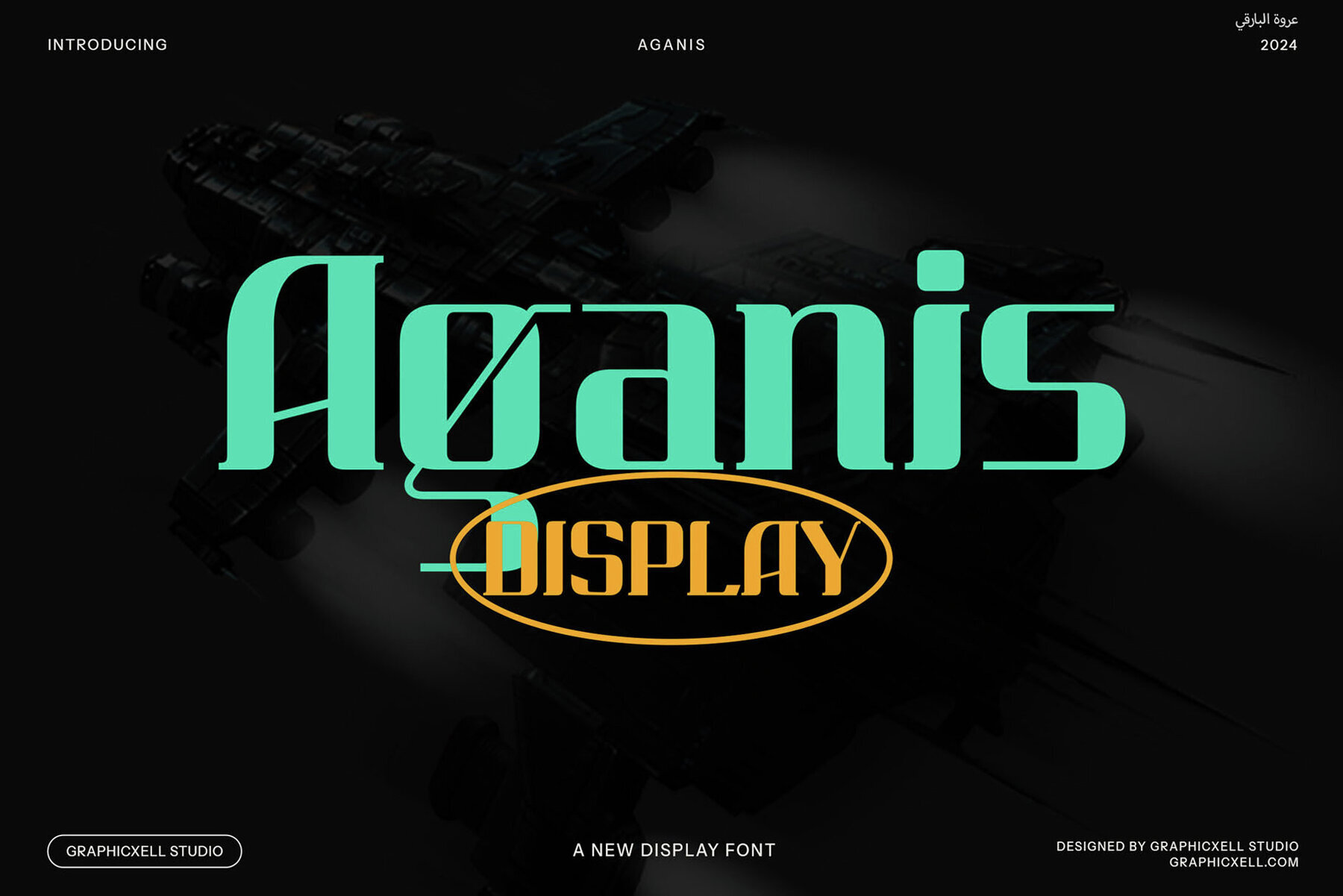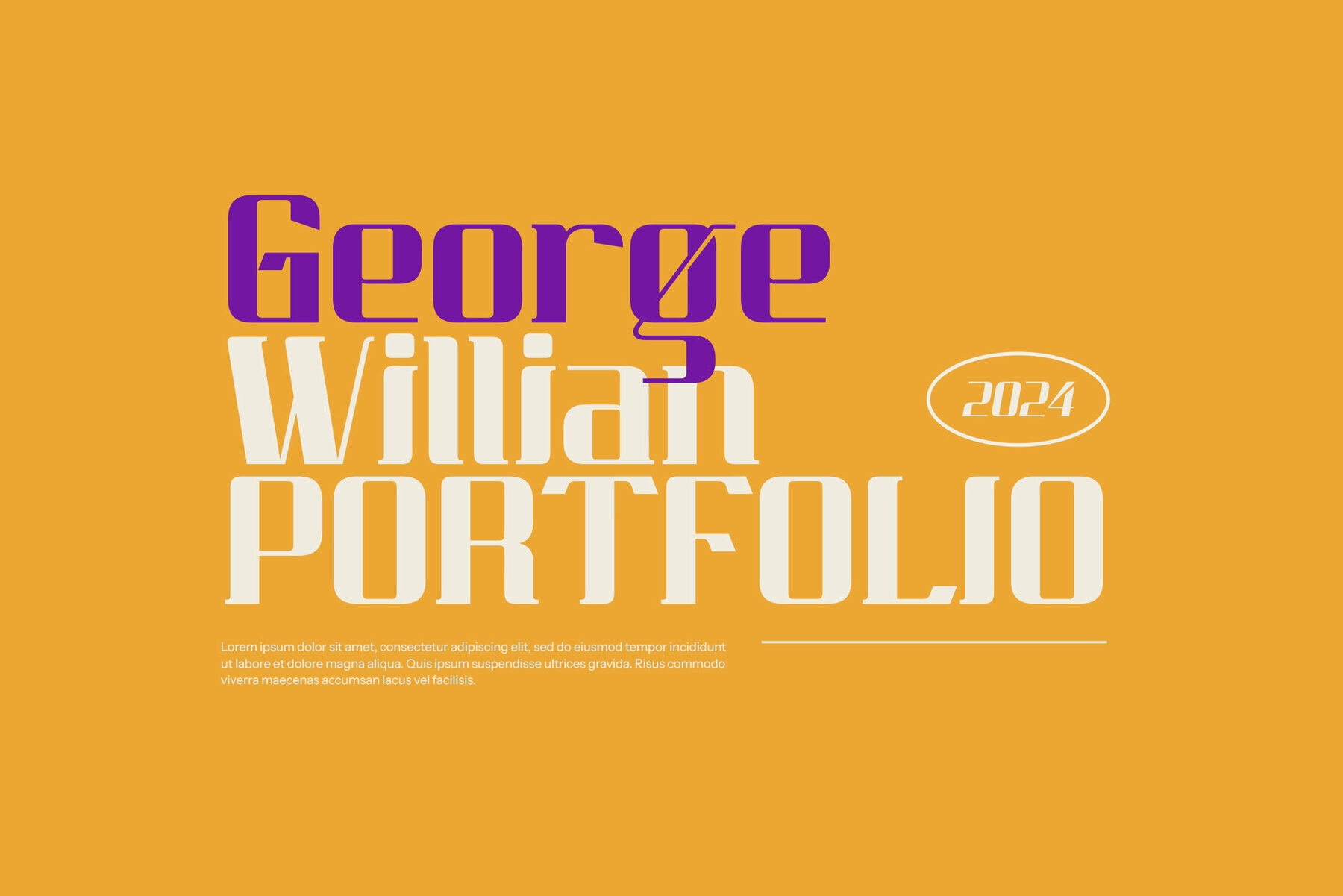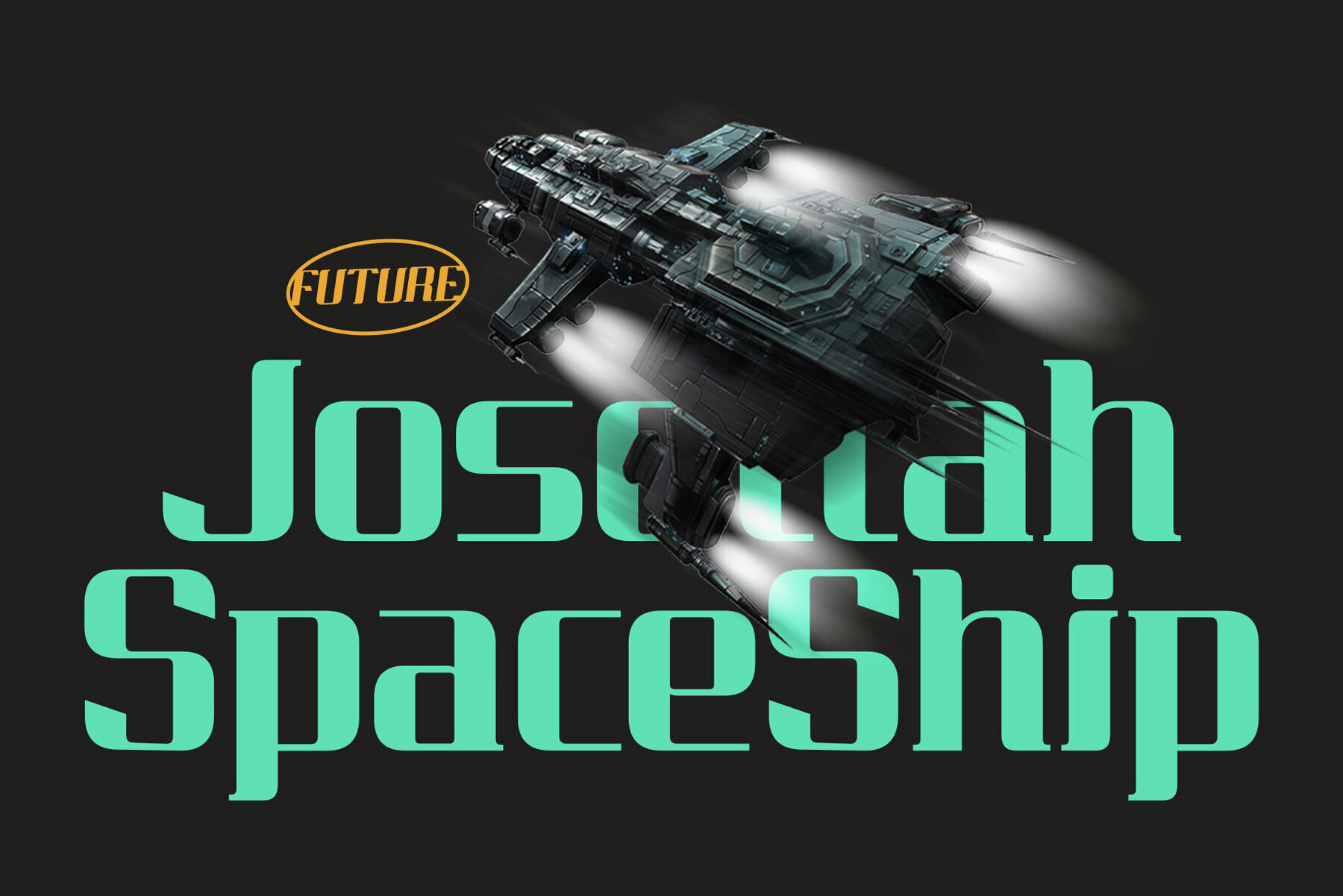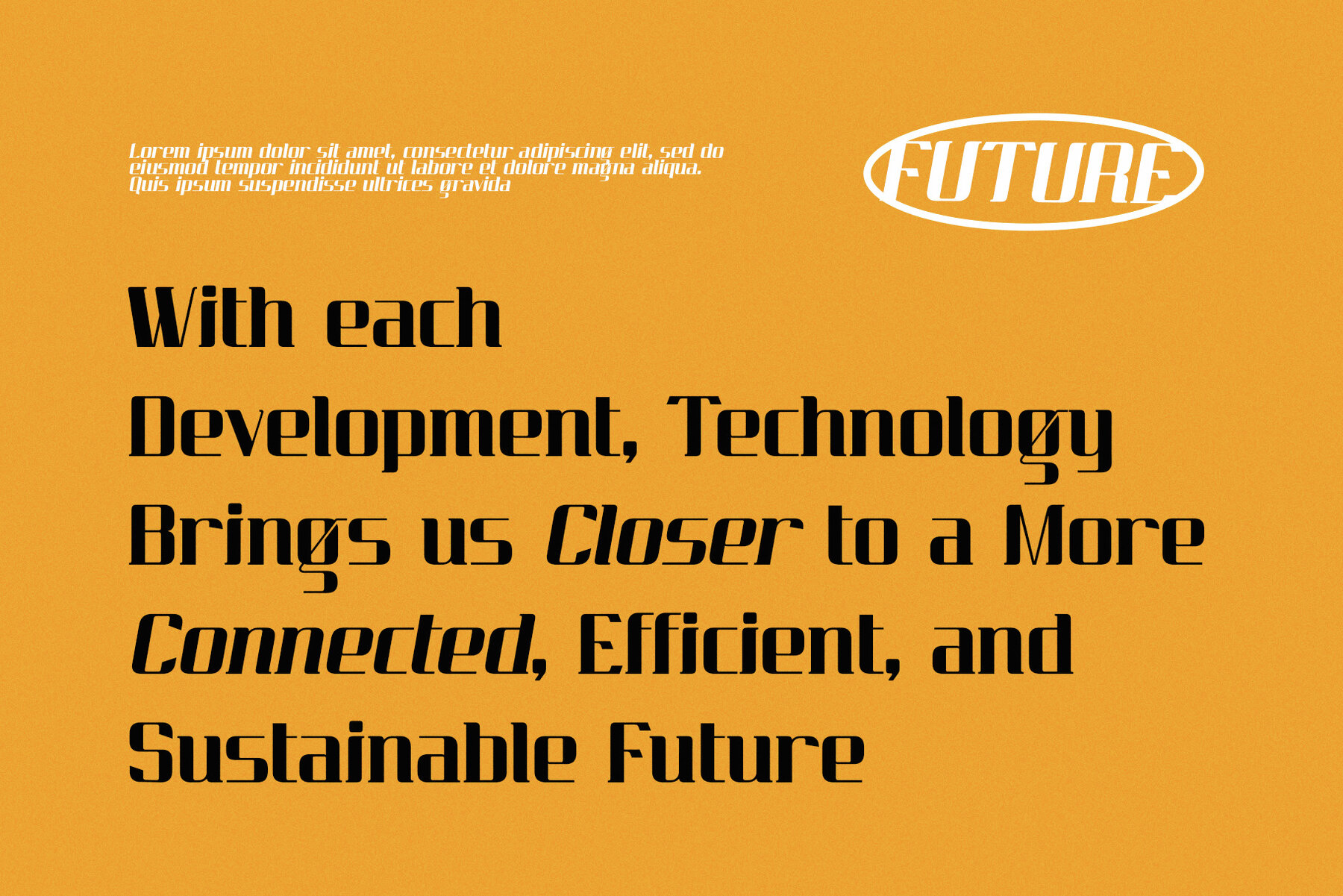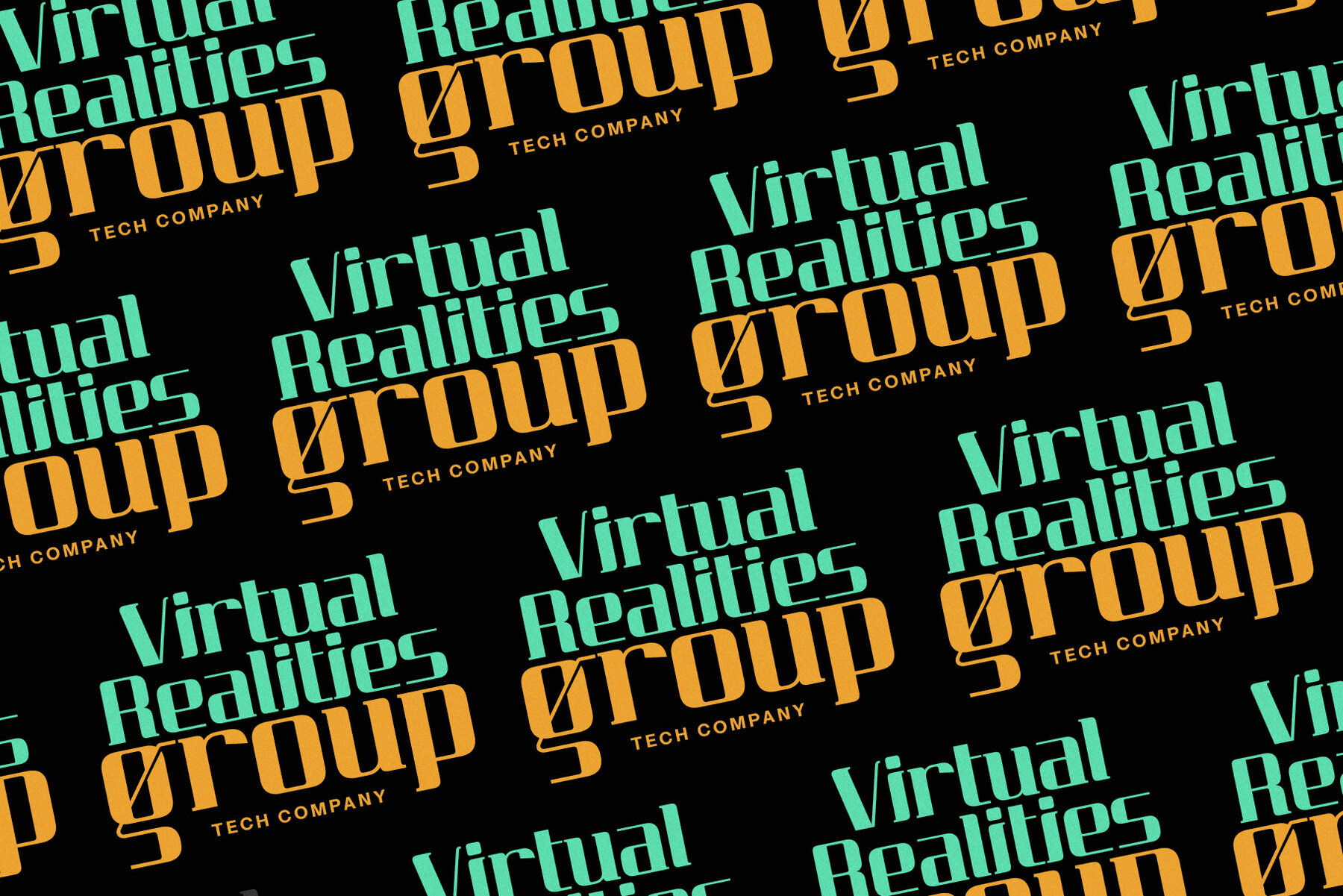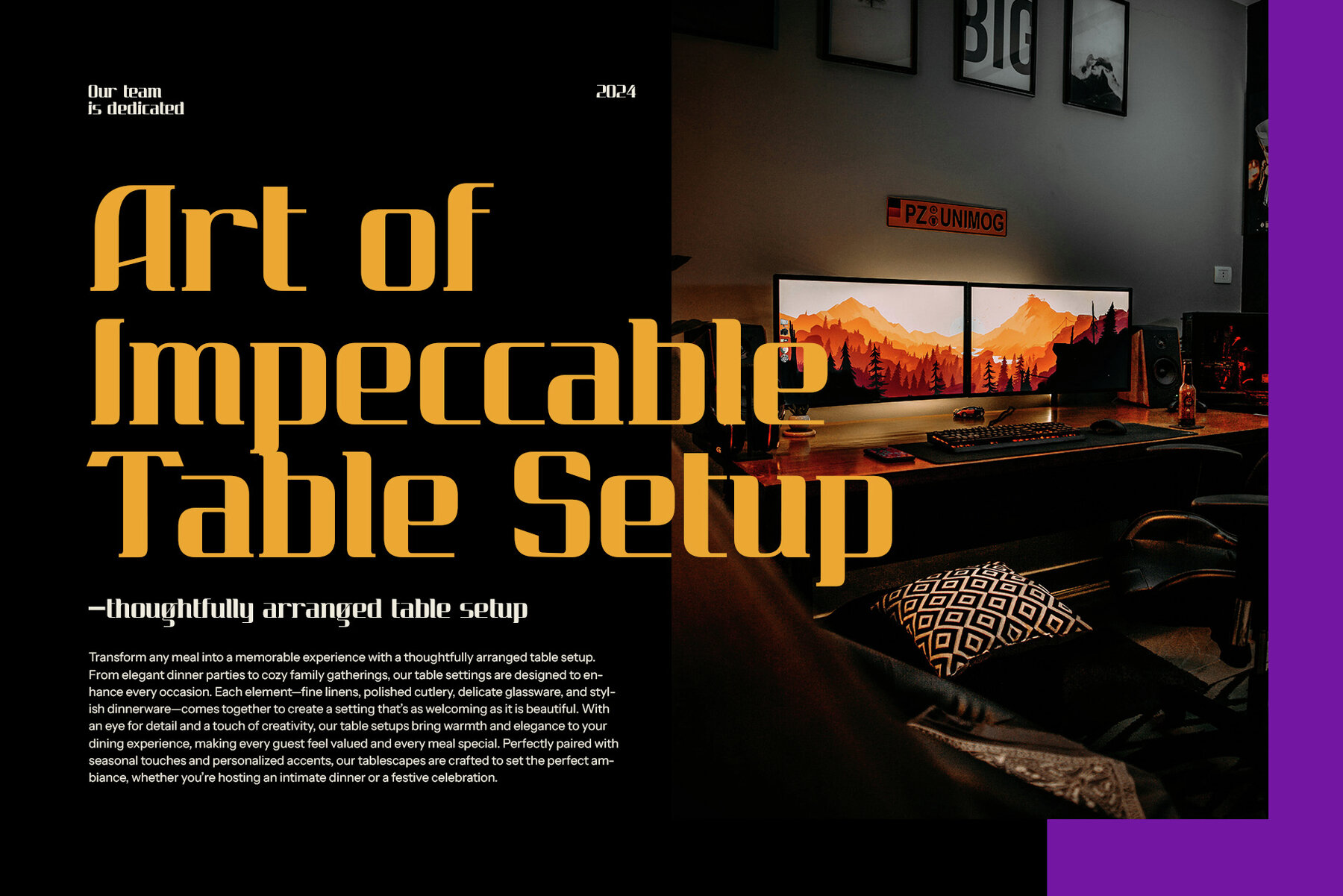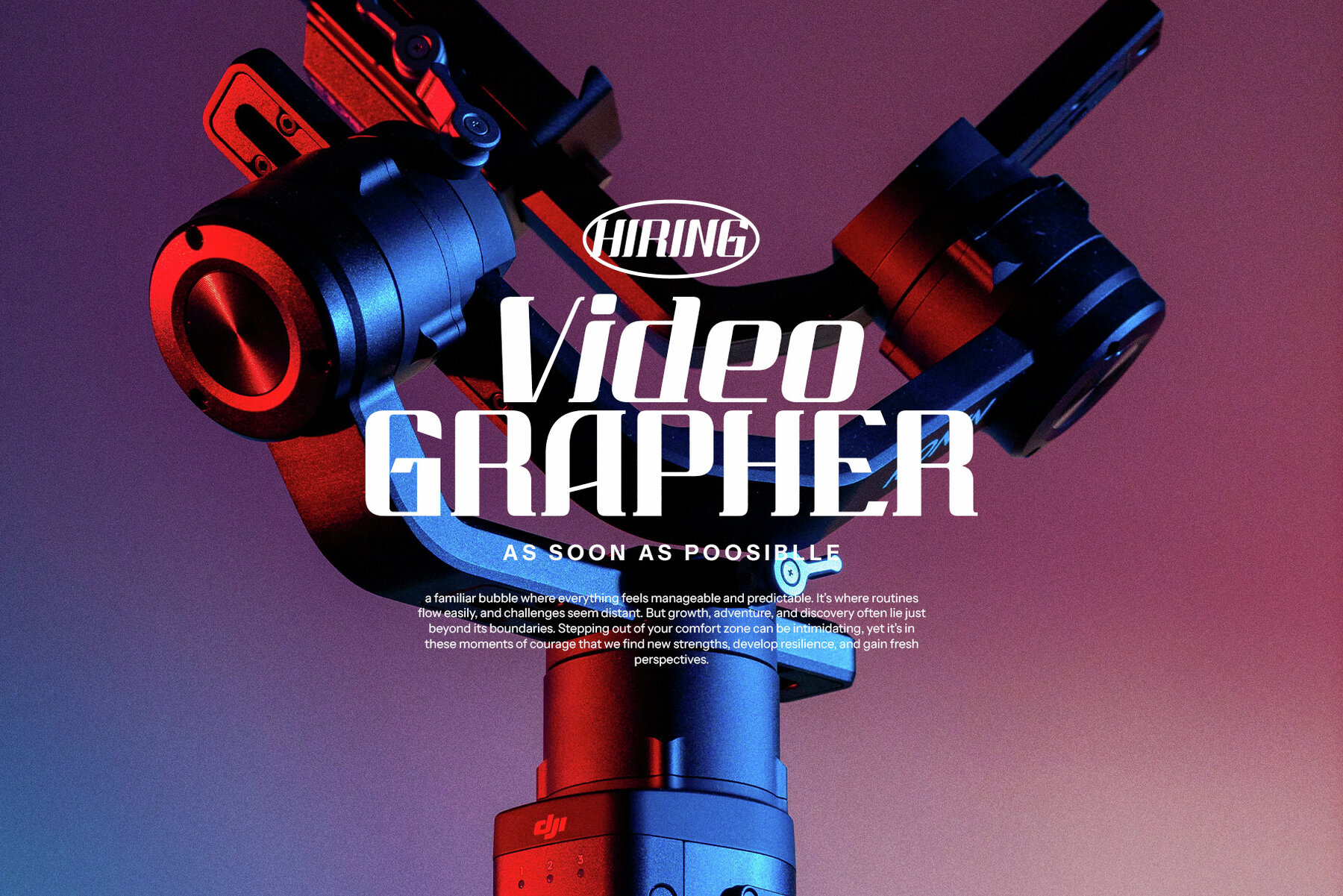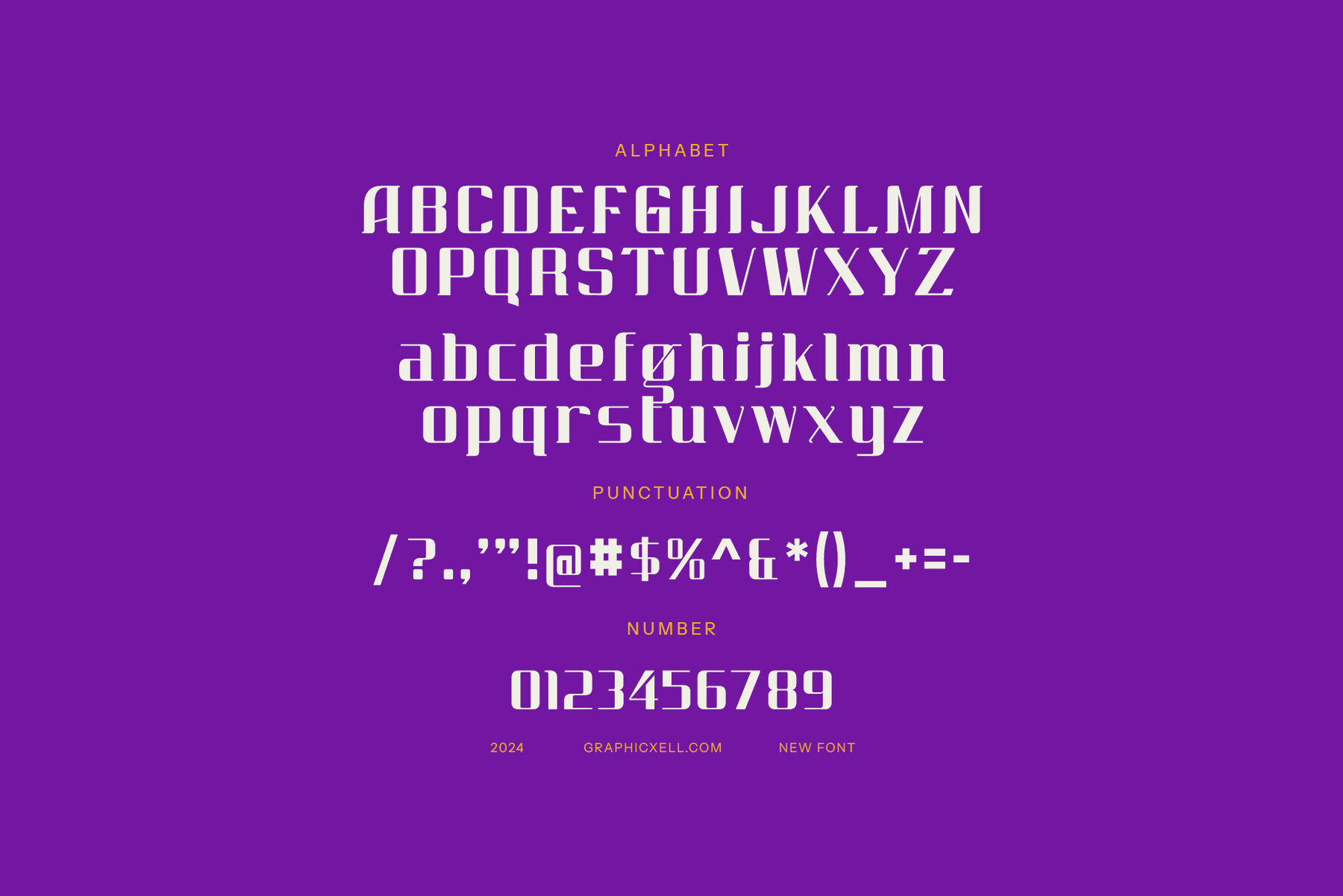
Aganis Font
Aganis
Aganis Display Font is a modern serif typeface crafted for forward-thinking designs. Featuring precise rectangular shapes and bold contrasts between thick and thin lines, this font injects a sense of sleek sophistication into any project. Its structured, geometric form is perfect for tech branding, digital media, and high-end advertisements, ensuring clarity and style. The font merges timeless serif elegance with sharp contemporary lines to create a balanced, technological feel.
With its versatile nature, Aganis Display works seamlessly in both large-scale headlines and smaller text, maintaining legibility and appeal across various media. Suited especially for industries related to technology, science, and modern design, Aganis is an exceptional choice for futuristic tech startup logos, dynamic magazine covers, and eye-catching posters. It serves as a strong, forward-thinking statement in branding and digital endeavors, providing a refined yet bold presence that demands attention.